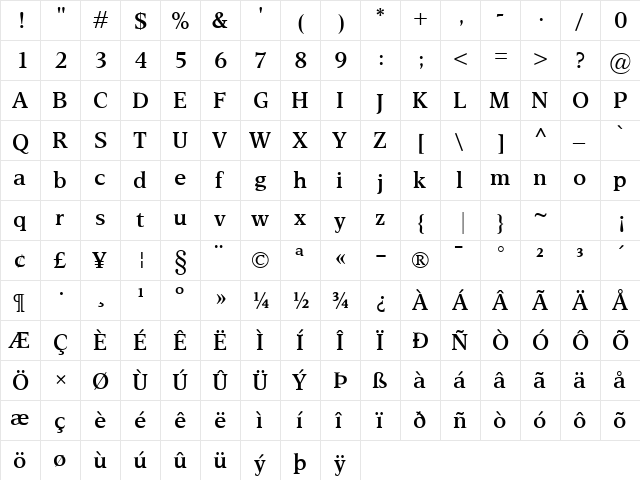
Esperanto SemiBold Regular
Design Context for Esperanto SemiBold Typeface
Esperanto SemiBold takes a measured approach to typography — its balanced proportions and neutral character make it a reliable workhorse for both digital and print work. The heavy weight commands attention and anchors typographic hierarchies.